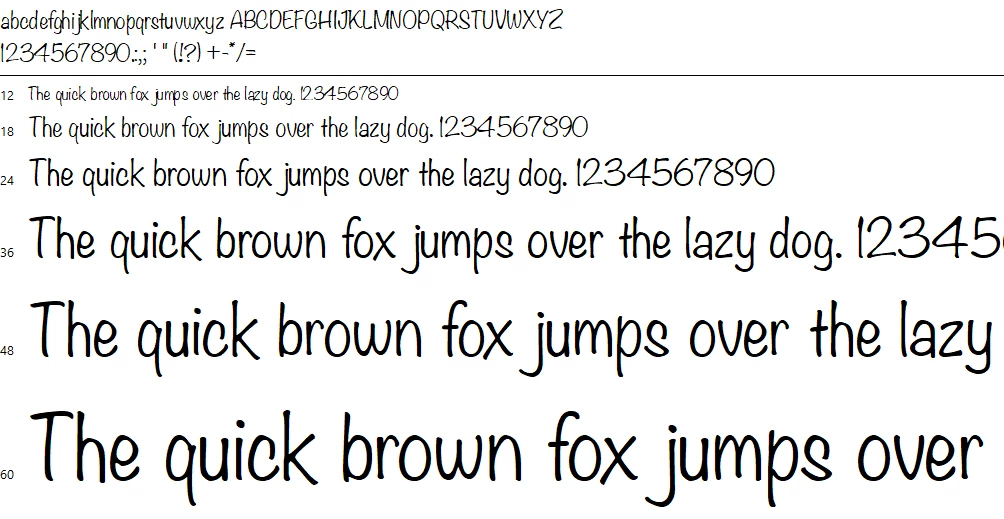
Noteworthy is a handwritten script typeface font. With fantastic appealing glances and its handwritten appears like design, Noteworthy font is very much eye-catching and attractive. This sophisticated handwritten script typeface has two styles available strong and also light. One more remarkable element of the unique font is that it is free for personal and commercial usages.
Noteworthy is a font that you can use all over. From normal inputting to design development, this font appropriates to use in any viewpoint. Developers love to use this font more than others. Besides developing, you can use this font in the area which is given listed below.
Design: For significant design purposes, Such as Business cards, Headings, Sales brochures designs, Noteworthy goes to the top of every person’s favorite checklist.
Logo designs: You can design your logos with it.
Web sites: I have seen different websites use this font.
Magazines: The font has the overview to position on top of magazines.
The noteworthy Font family members are beneficial for both, Printing and web present purposes. So, utilizing this in establishing a web theme or a video game will undoubtedly be an excellent approach.
Noteworthy Font View
| Name | Noteworthy Font. |
| Style | Handwritten, Script |
| Designer | Unknown |
What type of font is Noteworthy Font?
Ans: Noteworthy is a handwritten script typeface font.